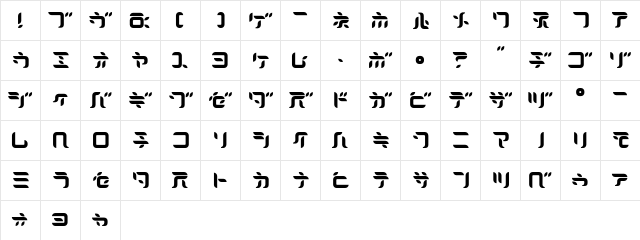
Dorisorange Katakana
Design Context for Dorisorange Typeface
Dorisorange takes a measured approach to typography — its balanced proportions and neutral character make it a reliable workhorse for both digital and print work.